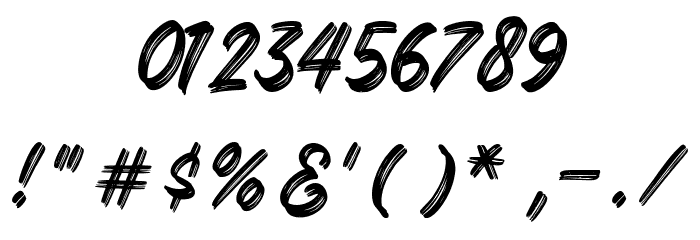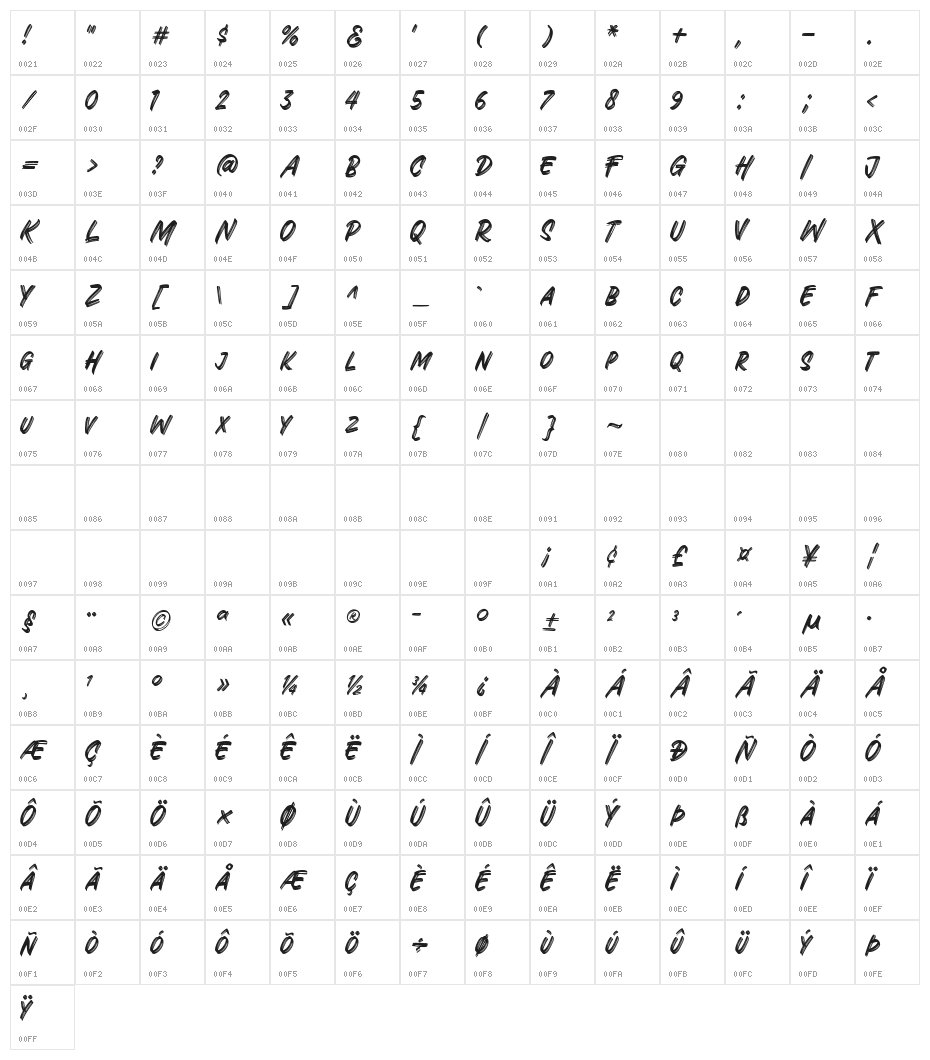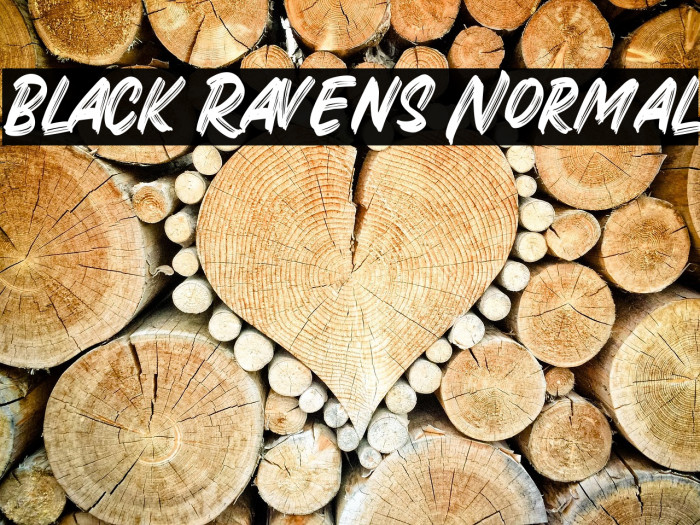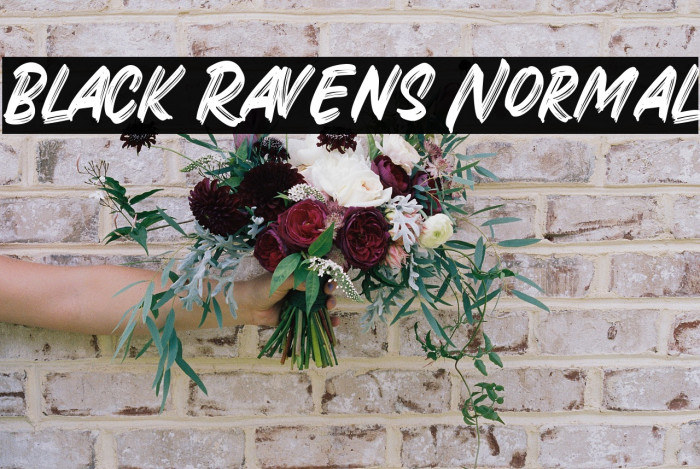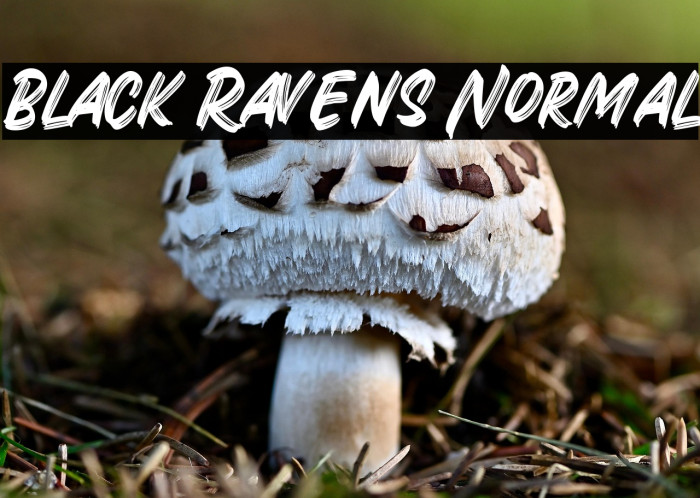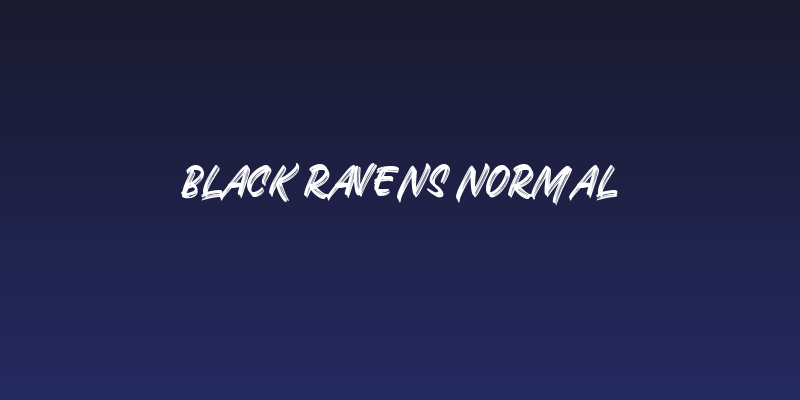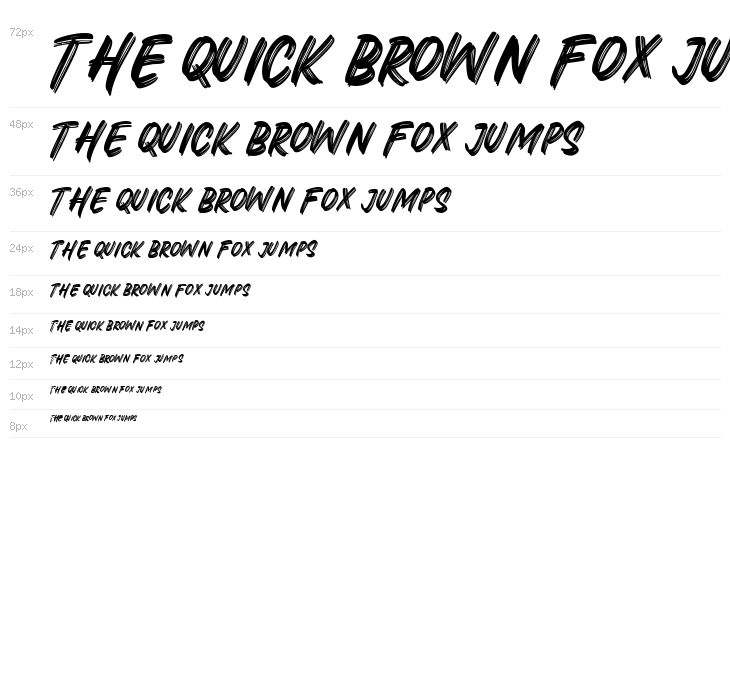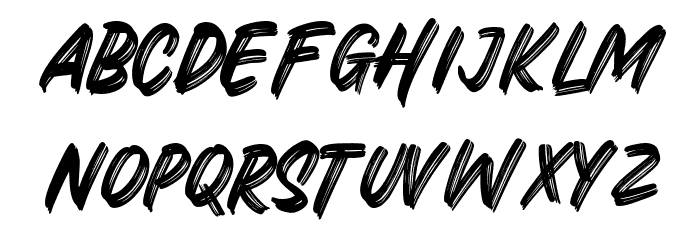
Black Ravens Normal Font
Black Ravens Normal Description
This font features a bold, brush-like style that exudes energy and dynamism. The letters are crafted with a hand-drawn aesthetic, giving them a raw and expressive appearance. Each character is slightly slanted, adding to the sense of movement and fluidity. The strokes are thick and uneven, creating a high contrast between the thick and thin parts of the letters. This font is particularly striking in uppercase, where the boldness and texture are most pronounced. The numbers and special characters maintain the same energetic style, ensuring consistency across all text elements. The overall look is modern and edgy, making it suitable for projects that require a strong visual impact.
| Overall Style | Modern, Edgy |
| Proposed Projects | Ideal for posters, album covers, branding, and any design that needs a bold, artistic touch. |